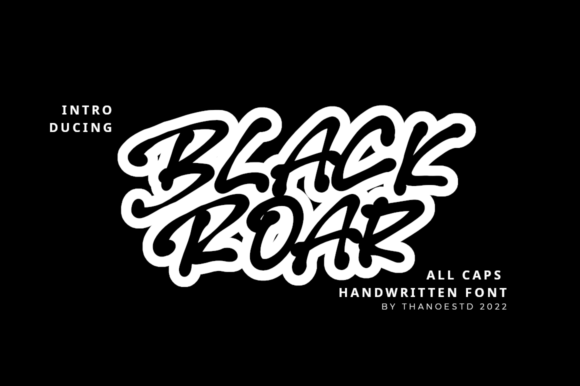
Unleash your creativity with Black Roar, the ultimate display font that captures the essence of urban energy and artistic expression. This all-caps handwritten graffiti-style font is a masterpiece crafted by thanoestd, a renowned font designer with an eye for captivating designs.
Immerse yourself in the world of Black Roar, a contemporary and fresh font that adds a touch of edginess and originality to any design. Its bold strokes and dynamic curves evoke a sense of freedom and rebellion, making it perfect for projects that demand attention.
Elevate your web applications, branding, posters, and social media graphics with Black Roar's distinctive style. Its PUA encoding ensures effortless access to a wide range of glyphs and alternates, giving you the versatility to create truly unique designs that speak volumes.
With Black Roar, the possibilities are endless. Let your imagination run wild as you craft eye-catching logos, vibrant headlines, and captivating social media posts. Its urban aesthetic adds a touch of authenticity and grit to your designs, making them stand out from the crowd.
Immerse yourself in the world of Black Roar, a font that embodies the spirit of creativity and urban flair. Its bold presence and dynamic curves will transform your designs into captivating expressions of art. Embrace the power of Black Roar and let your imagination soar!